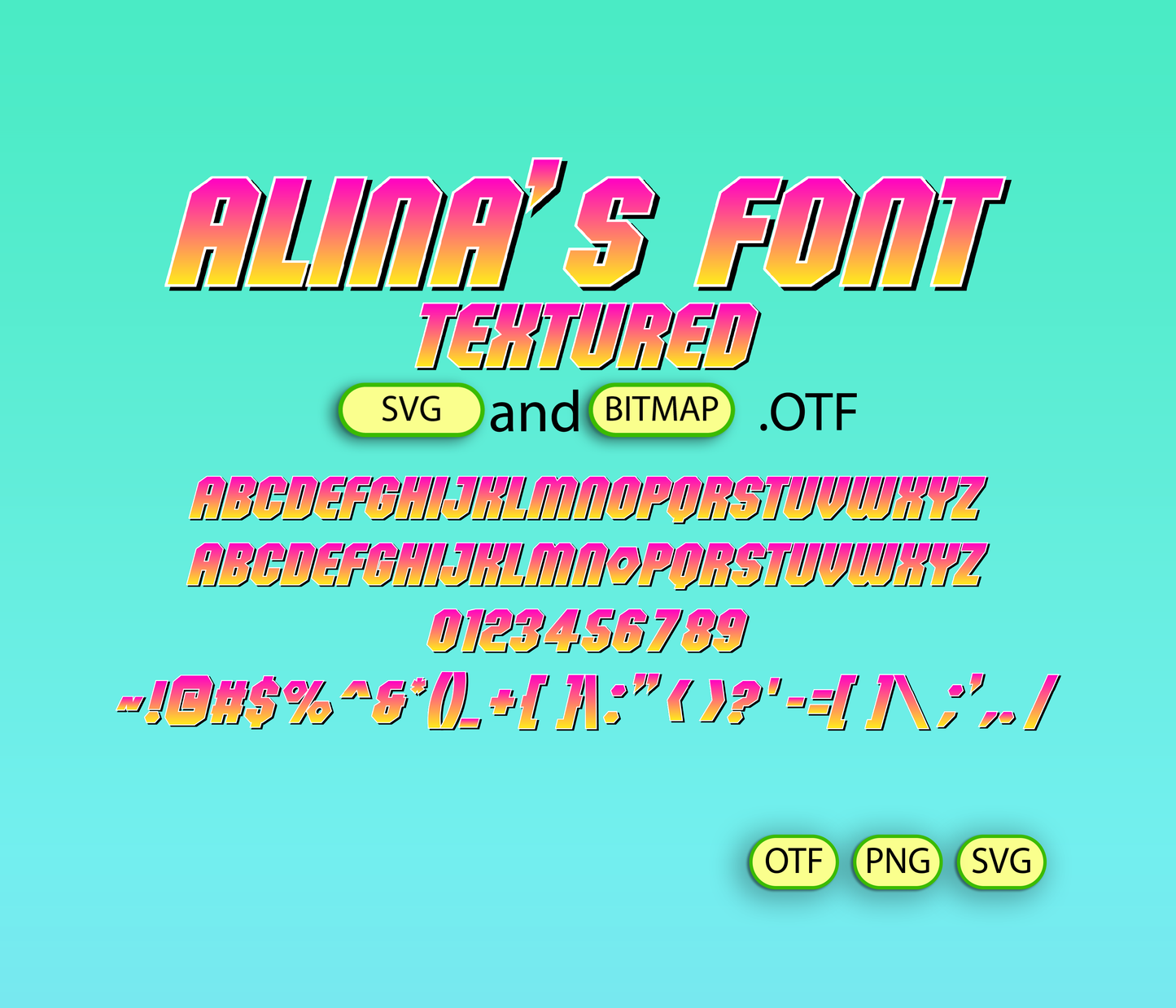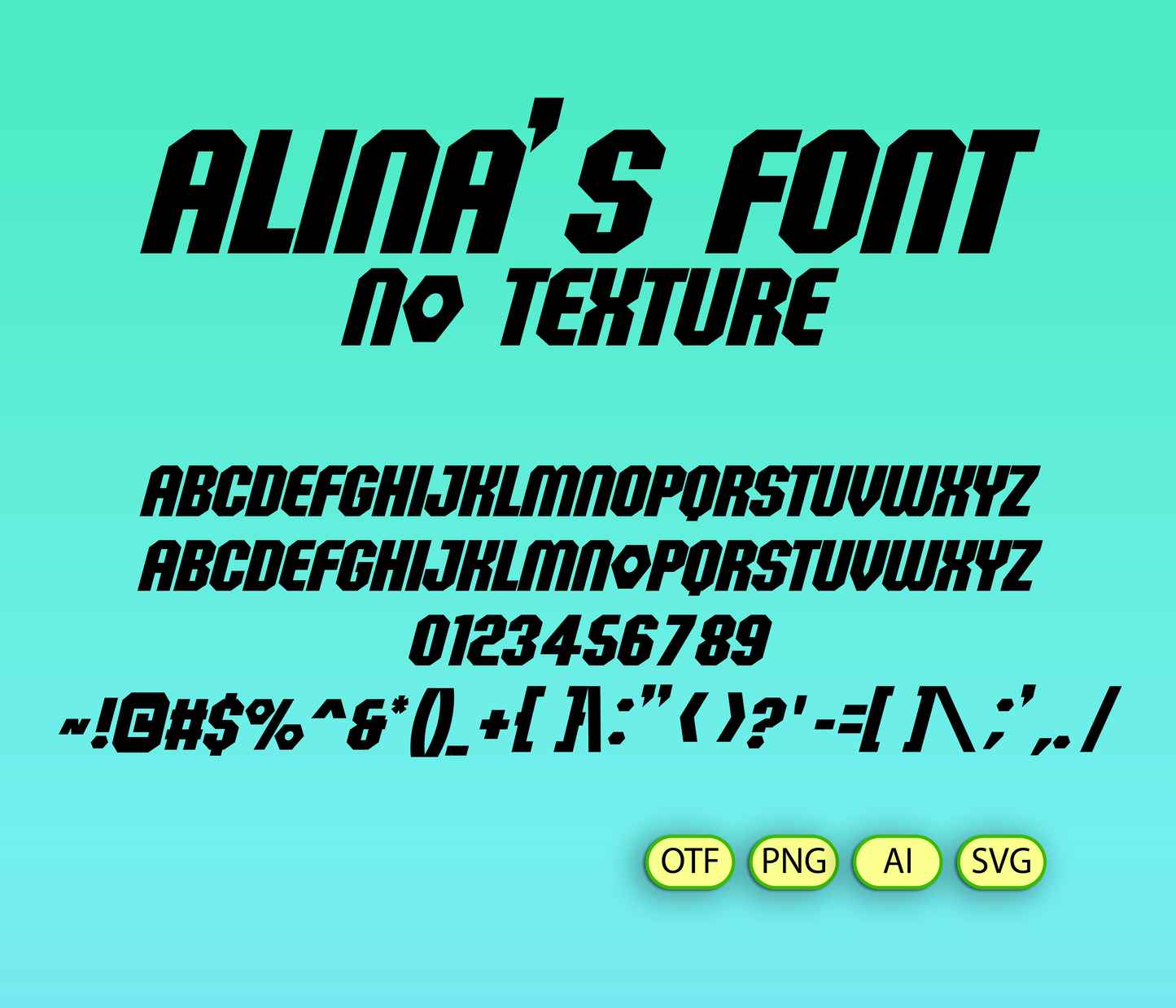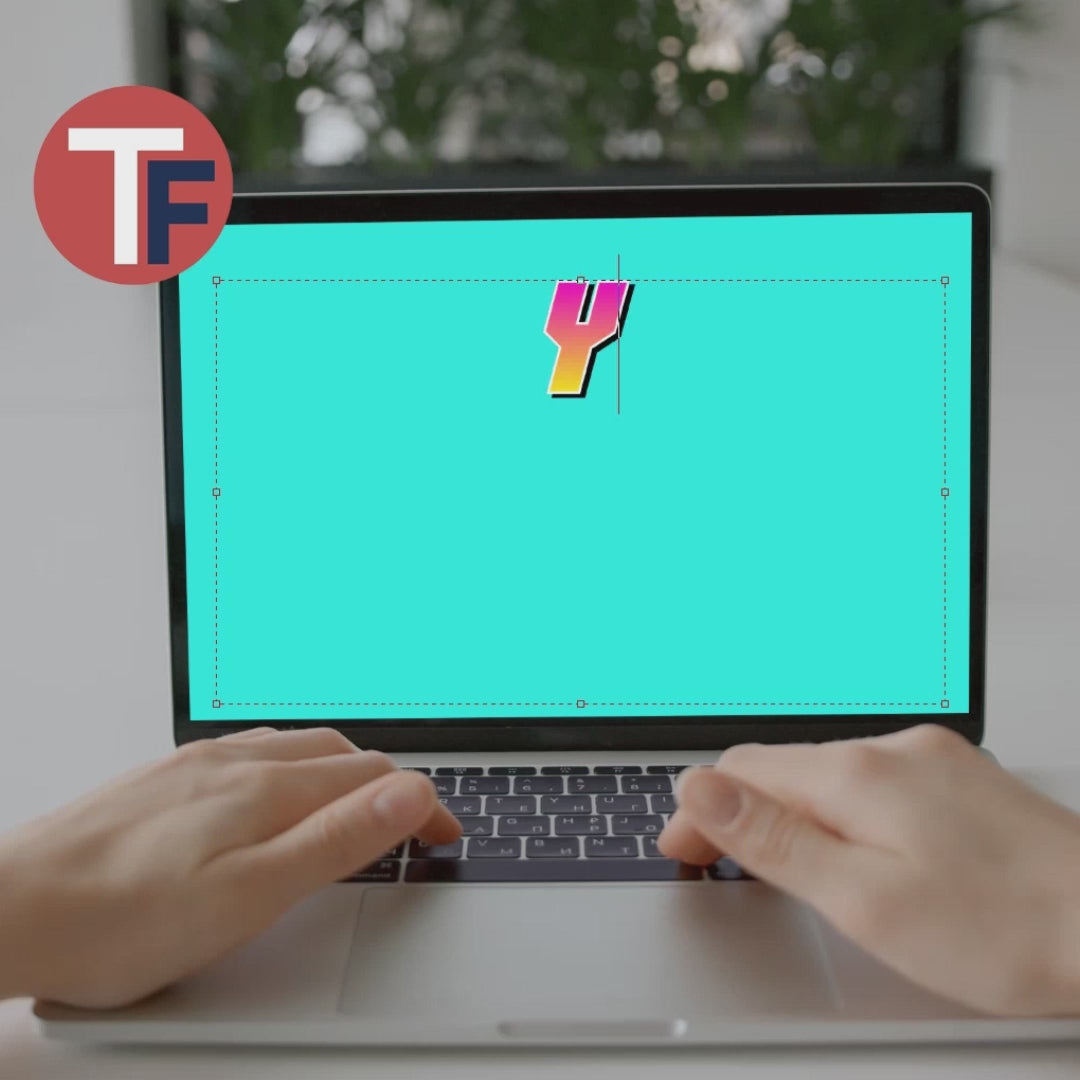
Ninja Legacy Font Textured
Ninja Legacy Font
Experience the vibrant and evolving world of the Hidden Leaf Village with our Ninja Legacy font, designed to capture the essence of a legendary Ninja Legacy's adventurous son and the new era of ninja. This font embodies the youthful energy and modern twist of the new generation, perfect for fans and creators who want to bring a piece of this dynamic sequel into their designs. Whether you're creating content that resonates with young anime enthusiasts or crafting merchandise for die-hard fans, our Ninja Legacy font ensures your projects are as compelling and forward-thinking as the series itself.
Designed for Diverse Creations This font is not just a tool but an extension of the Ninja Legacy universe, tailored to fit a variety of creative needs. Here are some engaging ways to use the Ninja Legacy:
The Ninja Legacy font package offers both textured and non-textured variants, allowing for versatile application across different mediums. Importantly, we've included a version with no texture, making it compatible with all types of software, including popular platforms like Canva. This compatibility ensures that regardless of the user's technical skills or resources, they can easily implement this font in their projects, enhancing accessibility and ease of use. The non-textured version is especially beneficial for those who need a clean and clear typeface for professional or intricate designs, ensuring that the font can be used effortlessly in any context, from digital media to print.